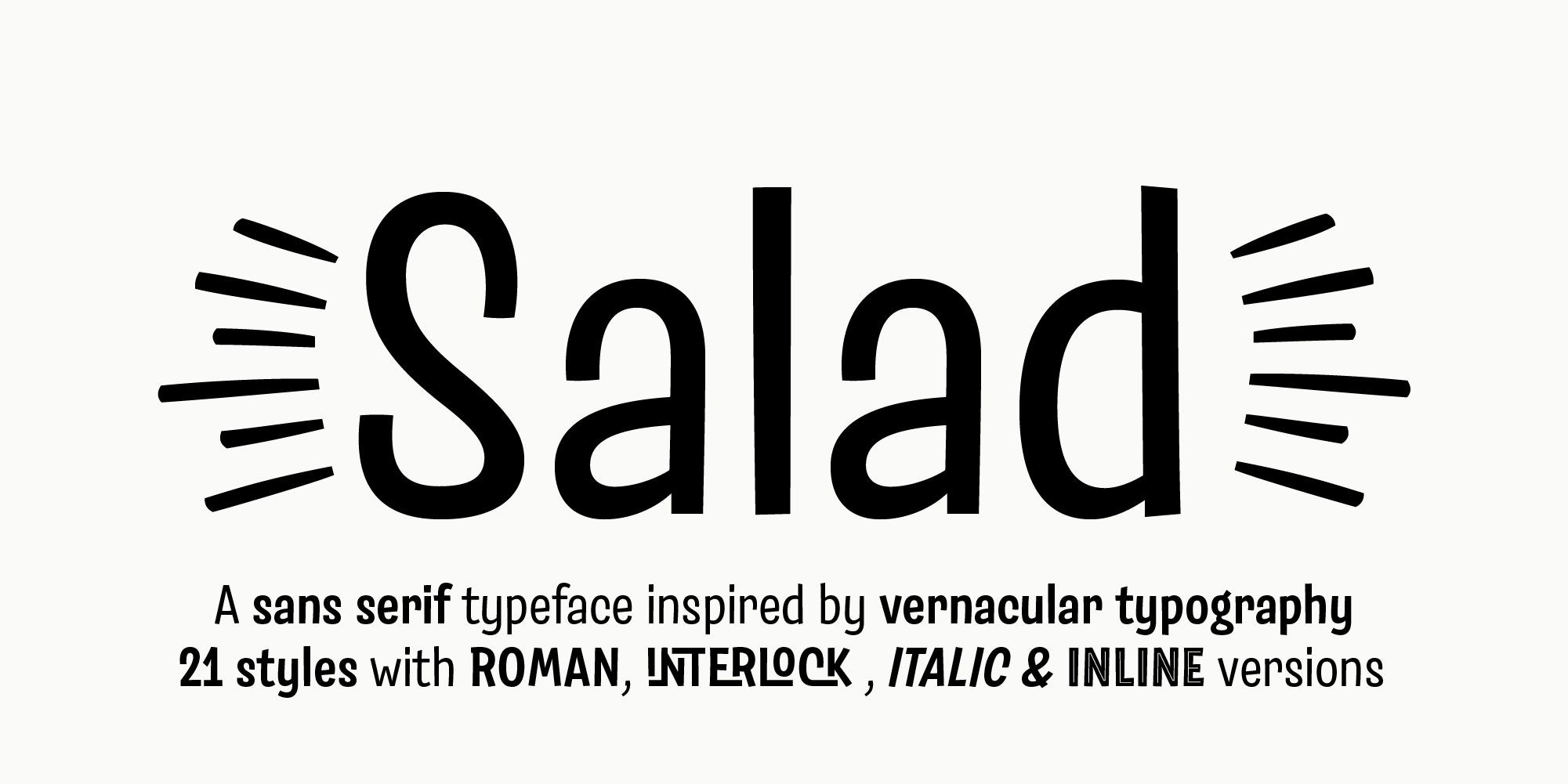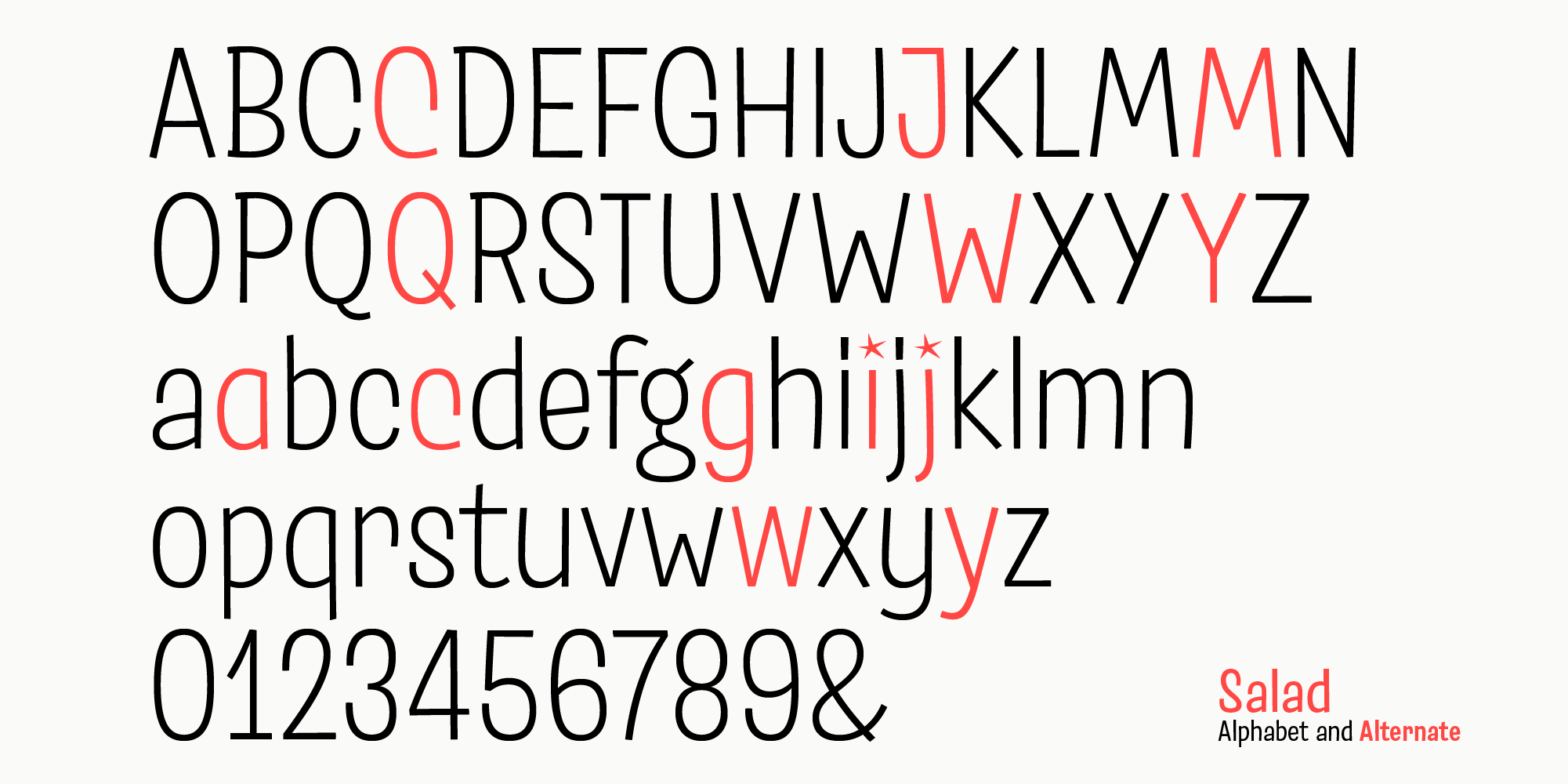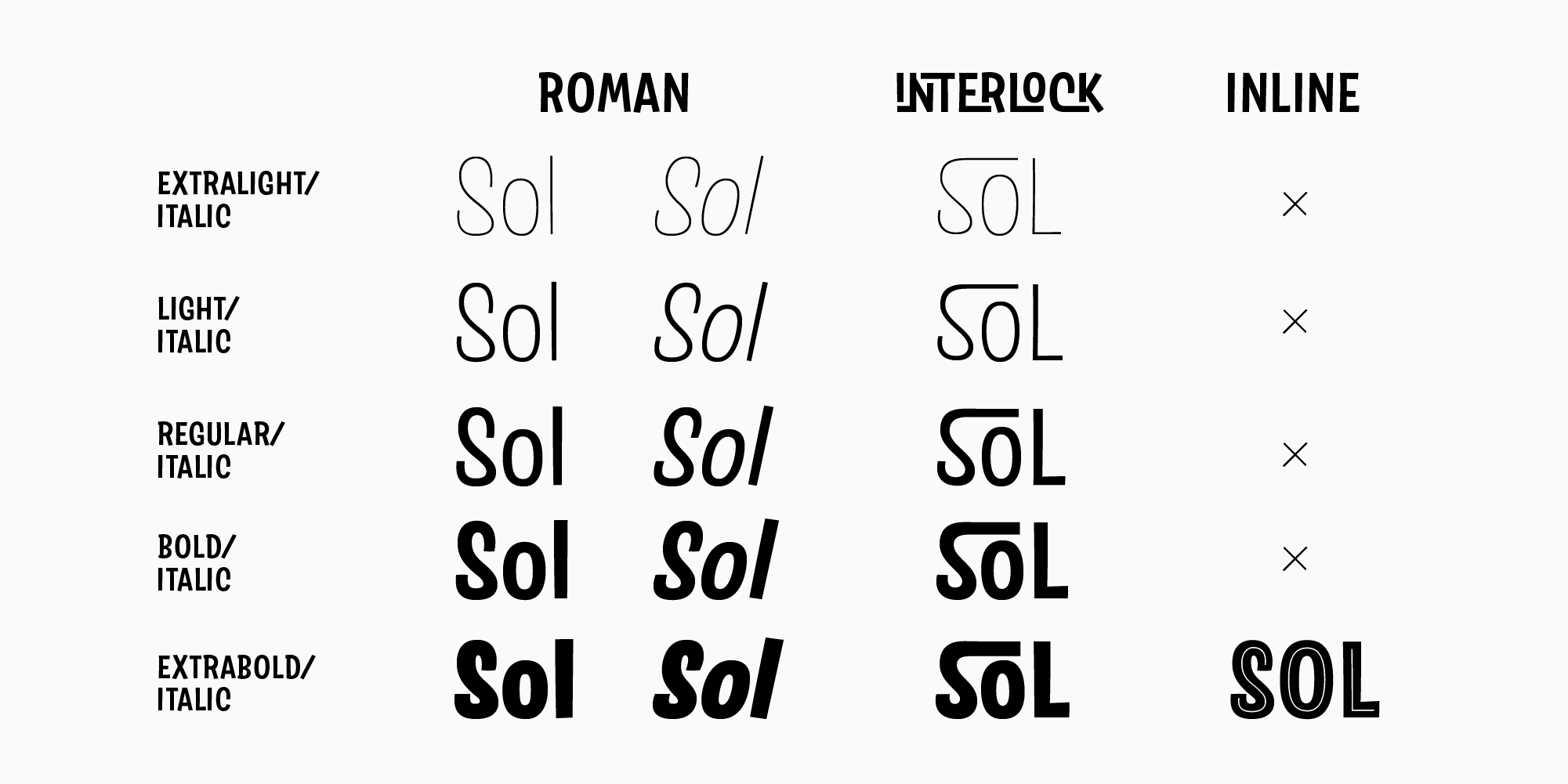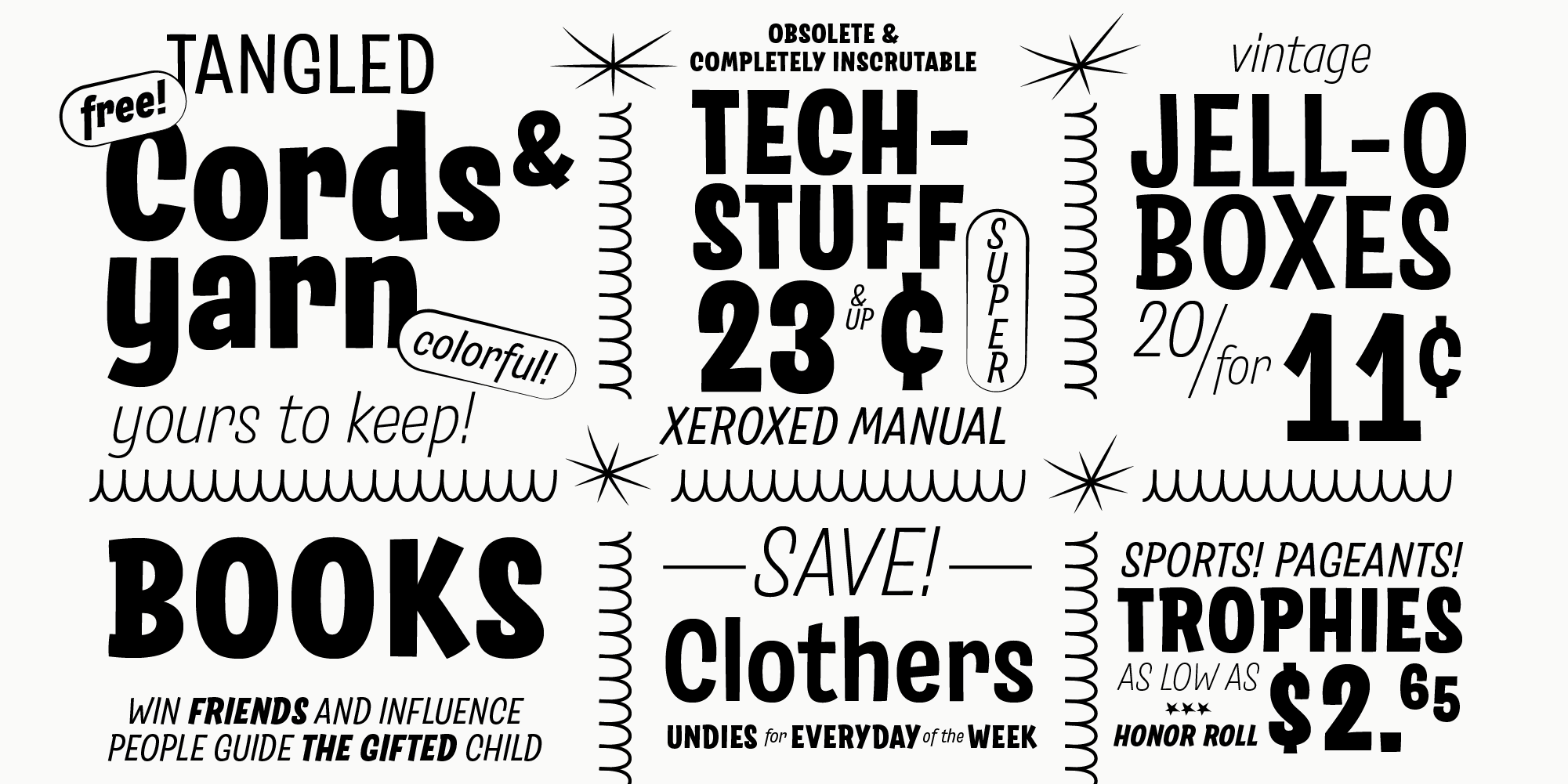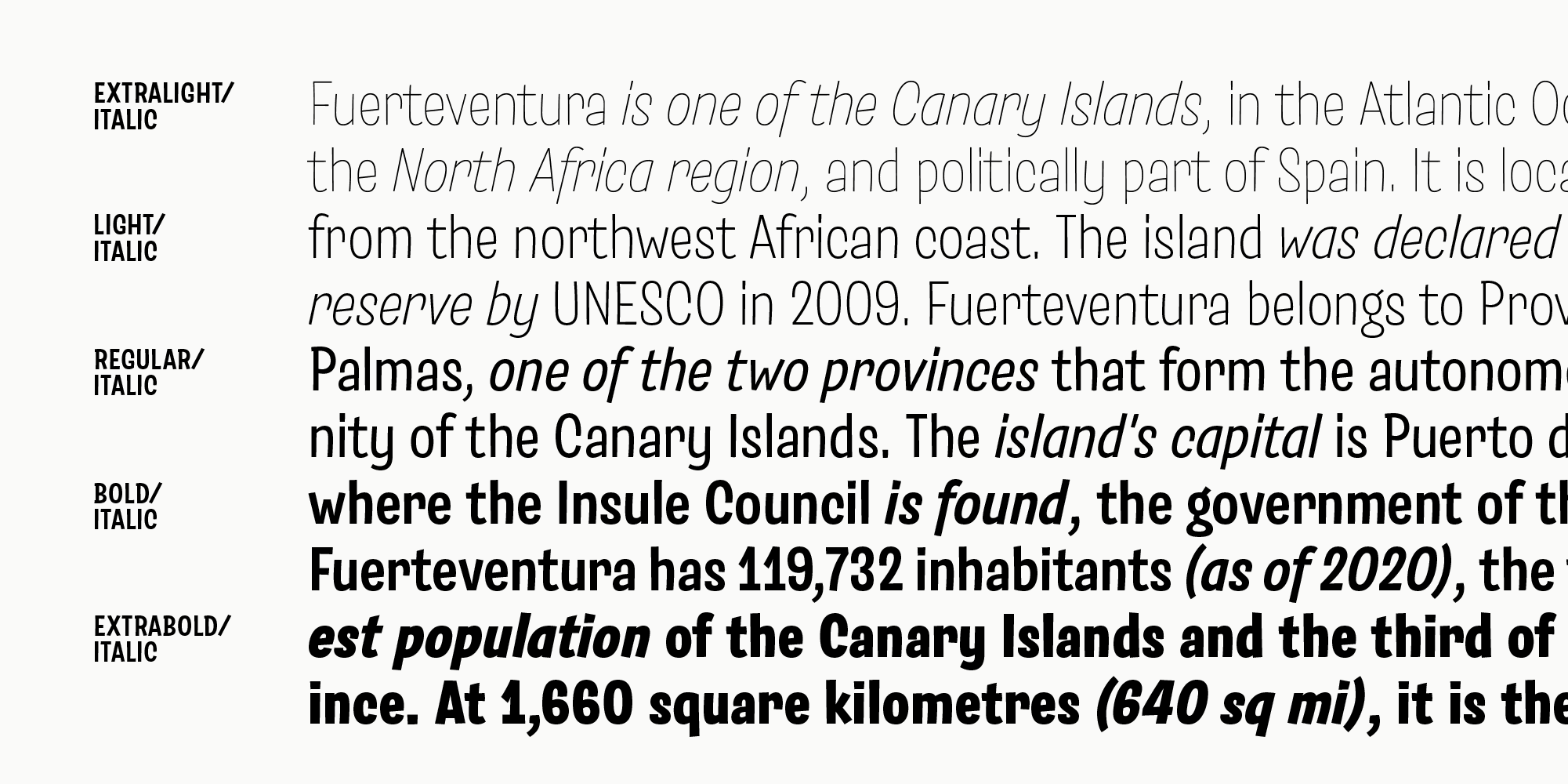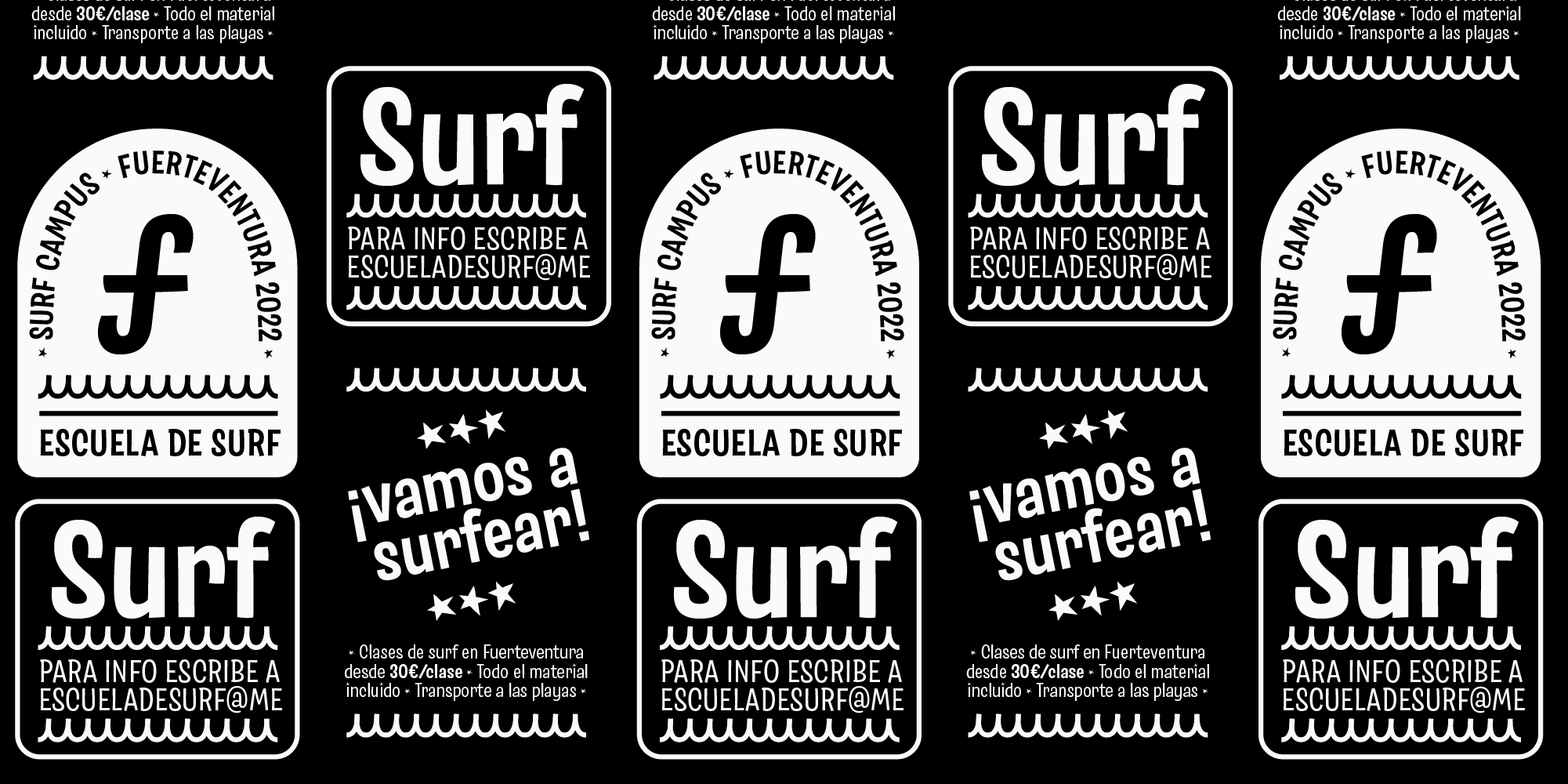
Sala de Fiestas
Designed by Debora Manetti Version 1.0.1 / released in 1999
Sala de Fiesta is inspired by a handpainted sign for a ballroom in the island of Fuerteventura.
The missing letters were drawn keeping the existing ones' idiosyncrasies (casual serifs, star-shaped dots).
Though hand-drawn the font manages unexpectedly to be very readable as body text, with the proportions of a condensed sans serif.